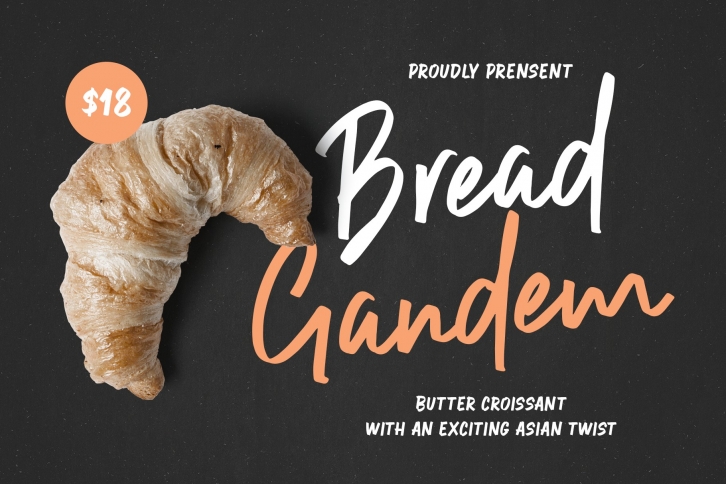
Sadines is a trendy and unique font with an authentic style. It was designed by surotype and it's a great choice for creative people who need such a font. It was released on October 1, 2018 and the file size is 16.74 MB. Sadines will add an organic vibe to any design idea!